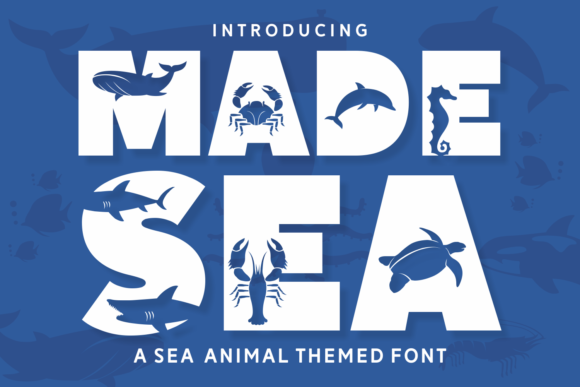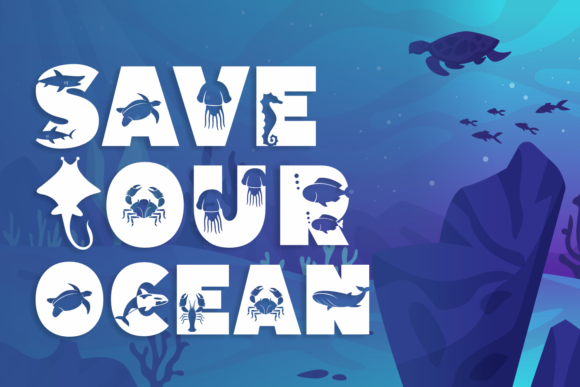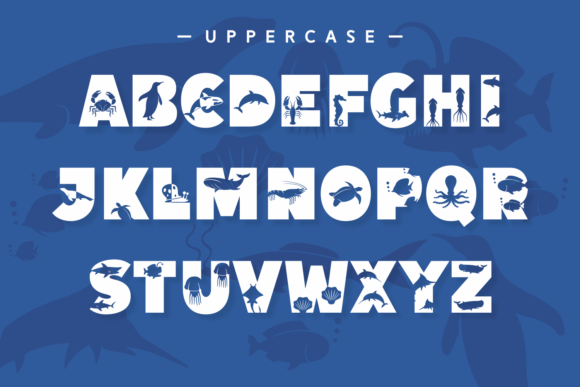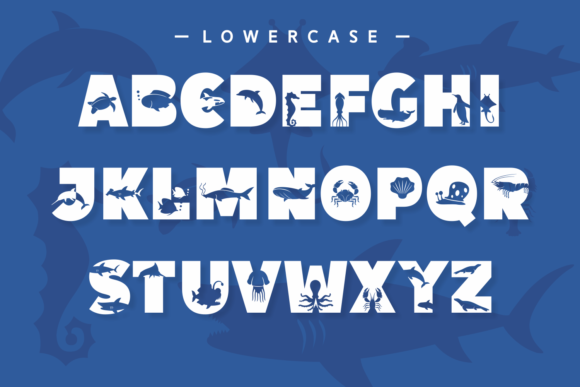
Made Sea Font: A Playful Display Font for Kids & Ocean-Themed Designs
About the Made Sea Font
Let us introduce you to Made Sea Font, where timeless design meets modern craftsmanship. Made Sea is a fun and uniquely designed decorative font. It embodies playfulness and authenticity and is the perfect choice for any children activity or school project. This font is PUA encoded which means you can access all glyphs and swashes with ease!
Made Sea’s playful nature makes it ideal for children’s books, branding for toys or playful businesses, and projects requiring a whimsical touch. It works well in headlines, short text blocks on packaging, or as an accent font in posters. However, its decorative style is less suitable for body text or UI elements where readability is paramount. Avoid using it for long paragraphs or website copy.
Pairing Made Sea with a clean sans-serif like Open Sans for body text creates a strong visual hierarchy. For a more sophisticated look, consider a classic serif like Garamond, which will contrast its informality. Alternatively, a geometric sans-serif such as Futura could provide a modern counterpoint to its handcrafted feel.
The font’s overall personality is best described as cheerful and approachable, making it a perfect fit for brands that wish to convey a sense of fun and childlike wonder.